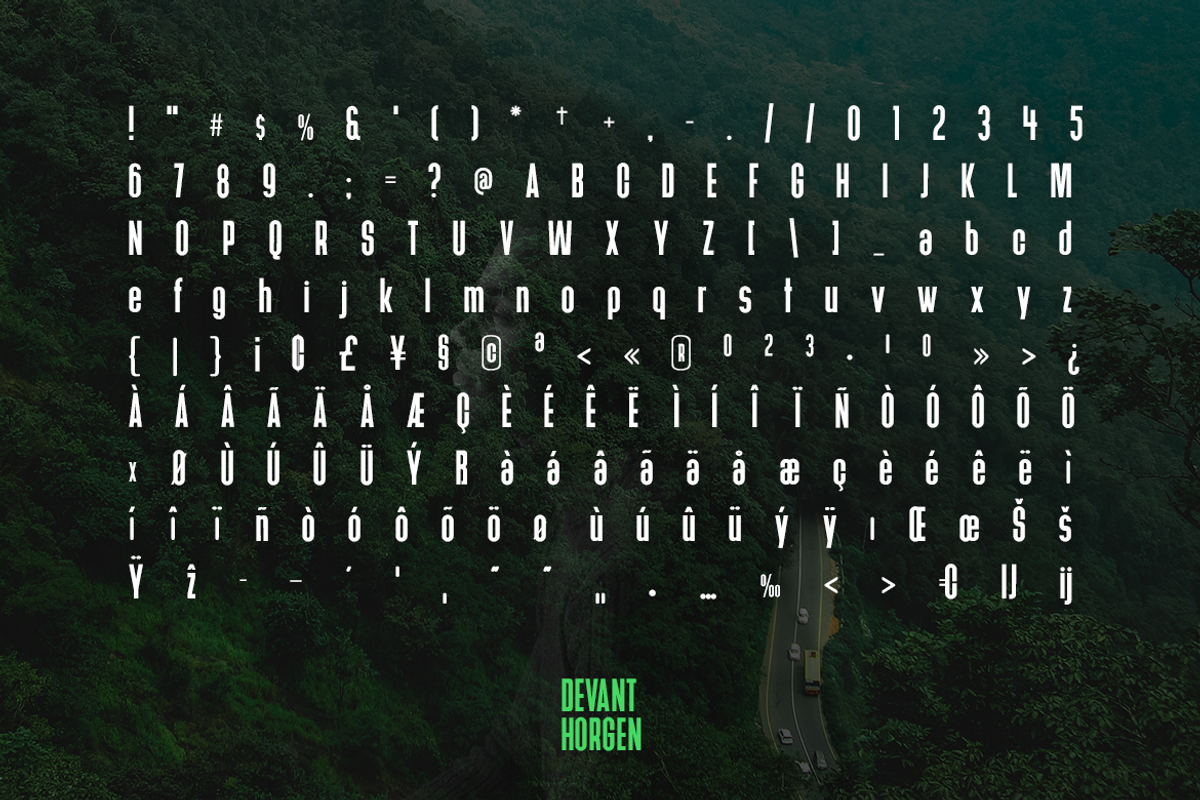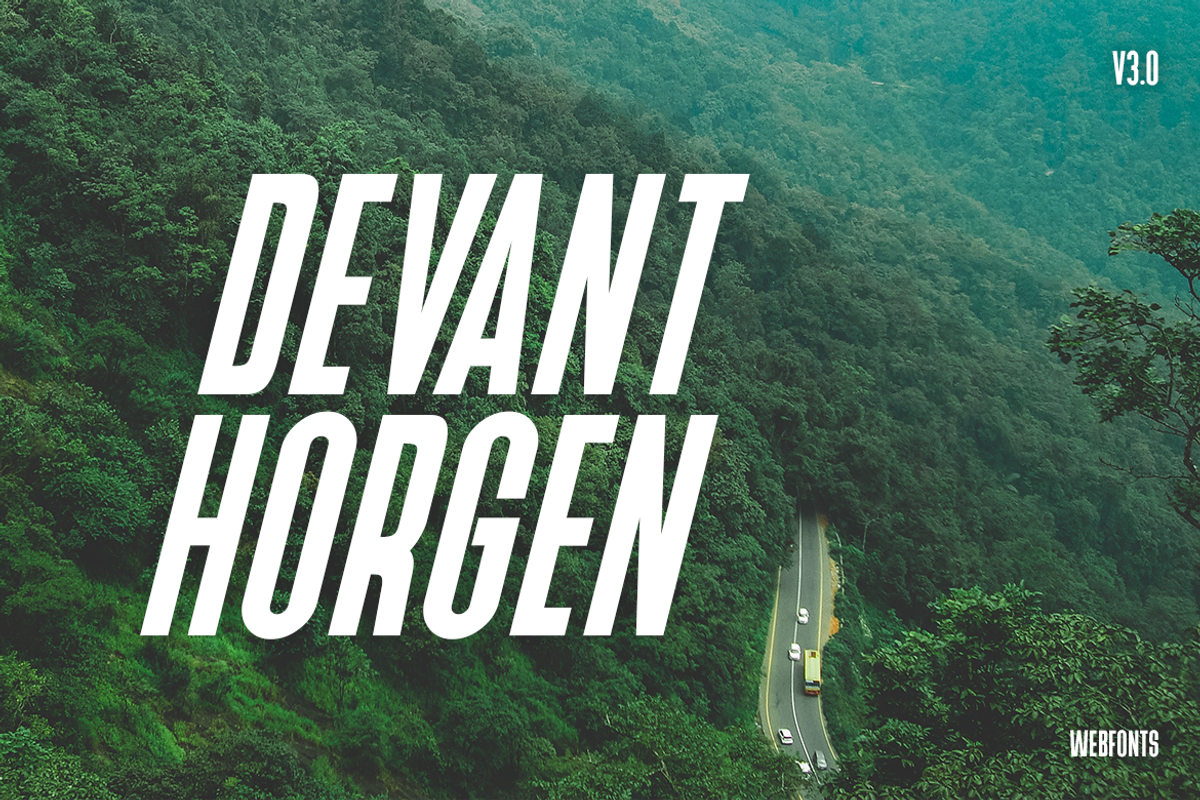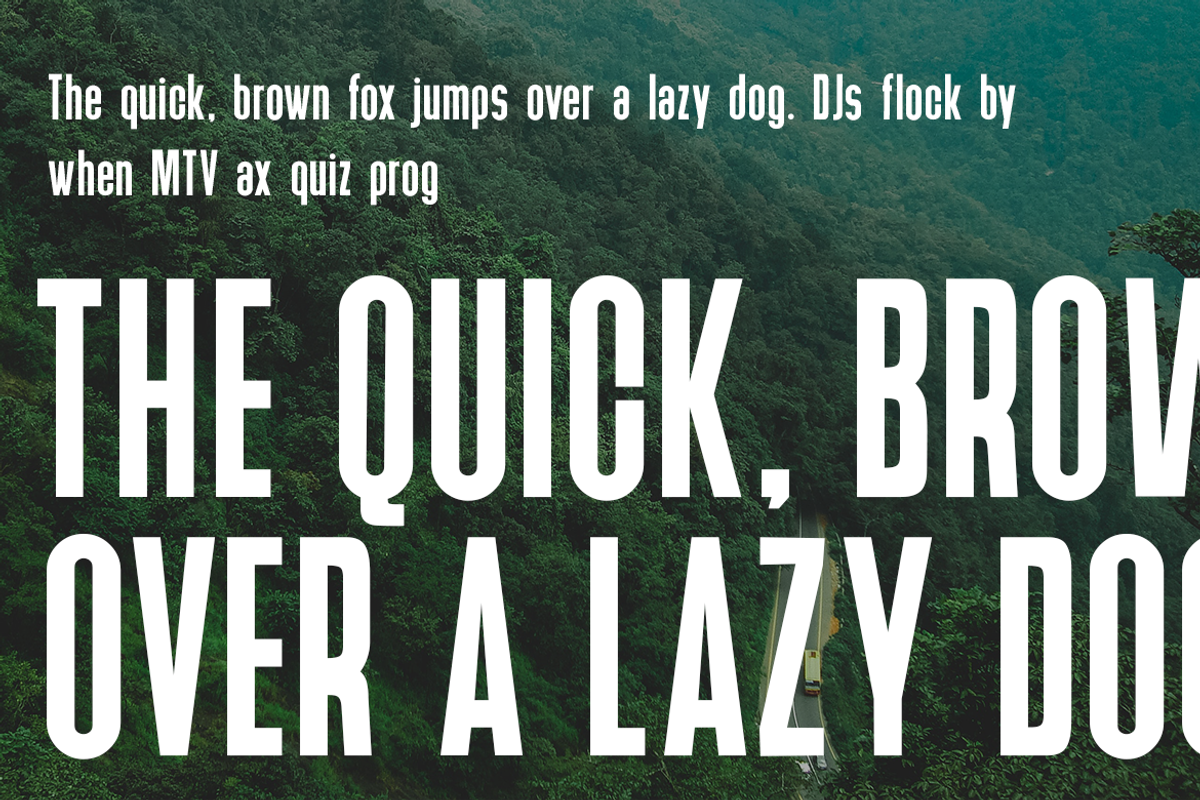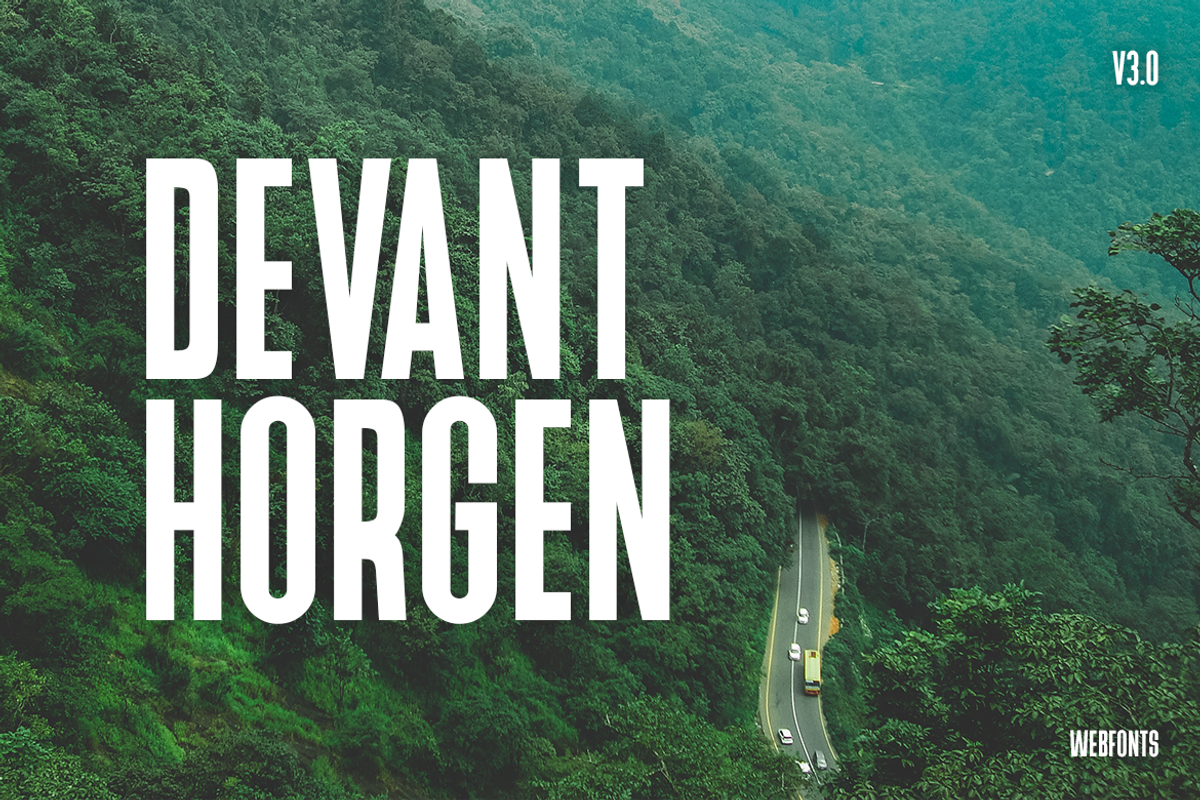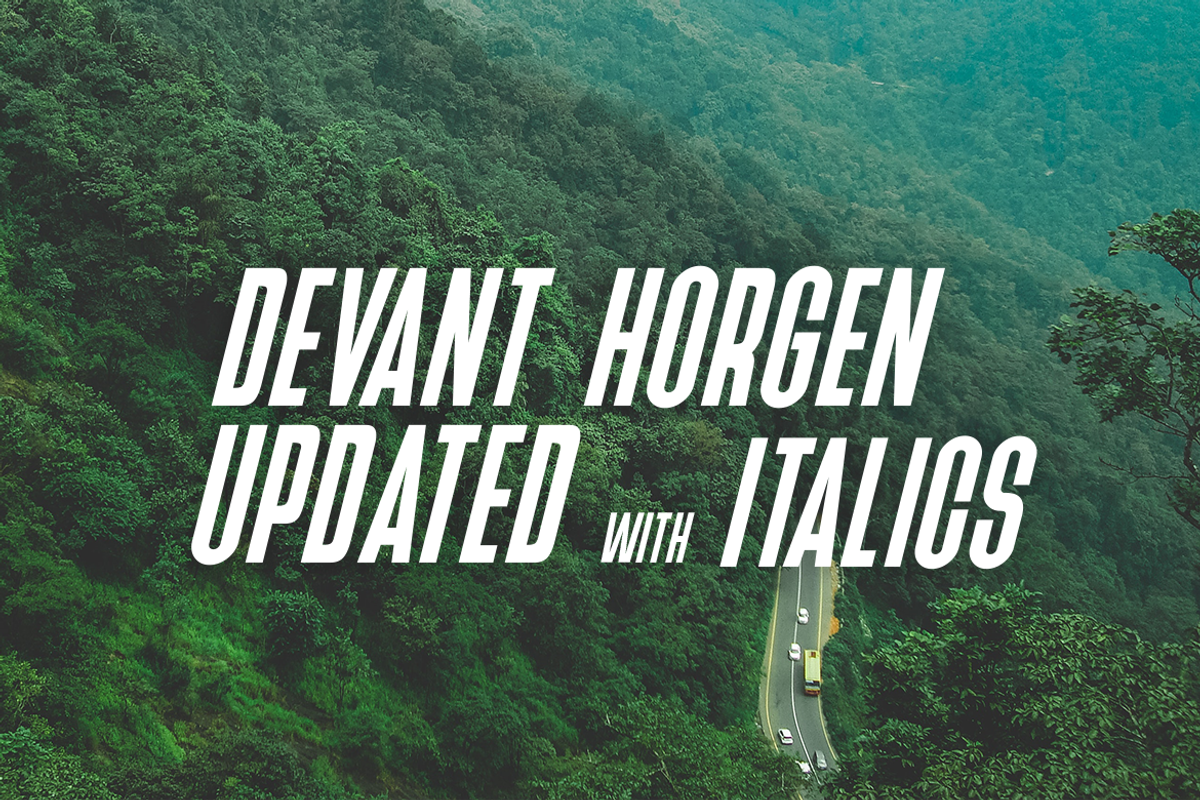
Devant Horgen - Modern Typeface v3.0
Devant Horgen Typeface V3.0 (Updated and added new Glyphs)
Devant Horgen is a modern Sans Serif typeface From Devant family, very much suitable for Film Posters, headlines, Block letter, Subheading, Logo Designs, Big Banners. Classic & Decorative Typography Web Designs.
- Upper / lowercase glyphs